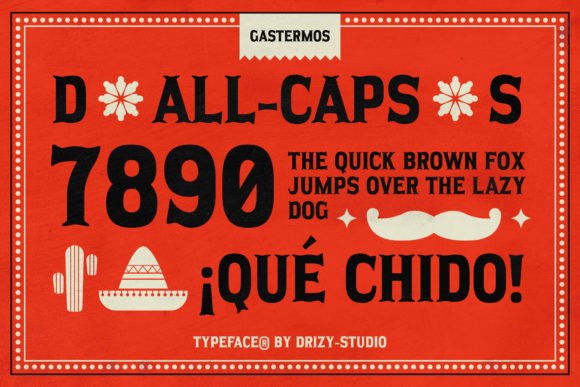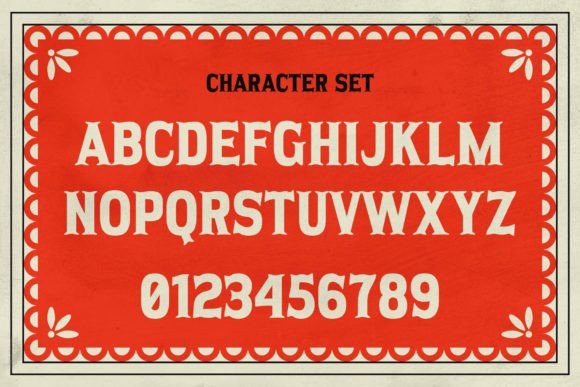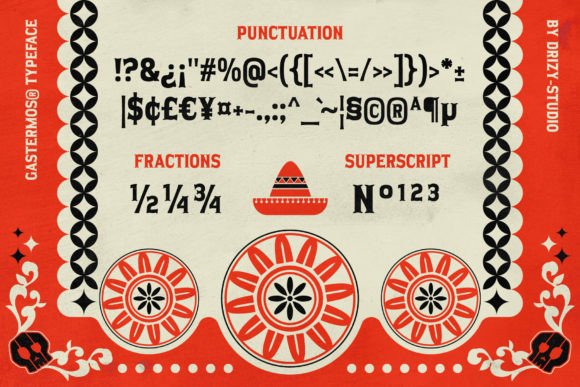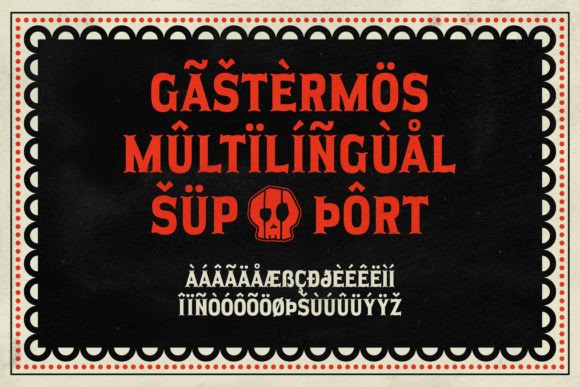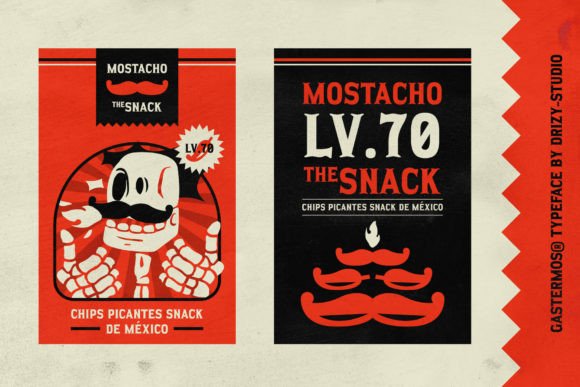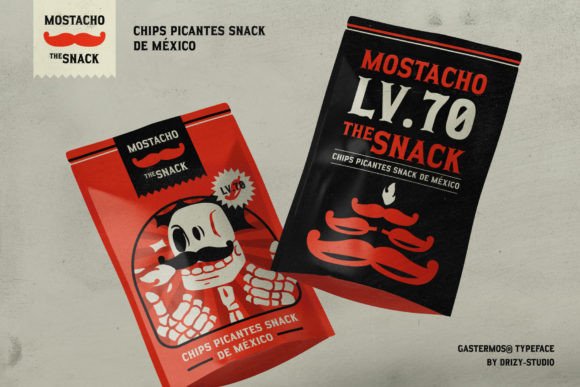
I still remember the frustration of working on a project, pouring my heart and soul into every detail, only to hit a roadblock when it came to choosing the right font. My client wanted something that would evoke the rich cultural heritage of Mexico, but I was struggling to find a font that captured the essence of this vibrant country. That’s when I stumbled upon Gastermos, a Mexican Tuscan Serif Font that would change the game for me.
Introducing Gastermos: A Unique Blend of Styles
Gastermos is an inspired typeface that blends traditional vintage-Mexican design elements with the classic elegance of Tuscan serif styles. This unique font captures the intricate artistry and rich cultural heritage of Mexican aesthetics, making it ideal for projects that seek to convey a sense of history, authenticity, and decorative flair.
My Honest Review of Gastermos
- ✨ Elegant and sophisticated design that adds a touch of luxury to any project
- 🎨 Versatile and adaptable, suitable for a wide range of design applications
- 🔍 Intricate details and ornate features that add depth and character to text
- 🤔 Some users may find the font a bit too ornate for certain projects, such as body text or captions
- ⚠️ Limited use of uppercase letters, which may require creative workarounds for certain design applications
The Backstory Behind Gastermos
Gastermos was inspired by the rich cultural heritage of Mexico, where traditional design elements meet the classic elegance of Tuscan serif styles. The font’s creator, a passionate designer with a love for Mexican culture, spent countless hours researching and experimenting with different typography styles to create a truly unique and authentic font.
Q: What is Gastermos font?
A: Gastermos is a Mexican Tuscan Serif Font that blends traditional vintage-Mexican design elements with the classic elegance of Tuscan serif styles.
Q: What is Gastermos suitable for?
A: Gastermos is suitable for projects that seek to convey a sense of history, authenticity, and decorative flair, such as branding, editorial design, and packaging.